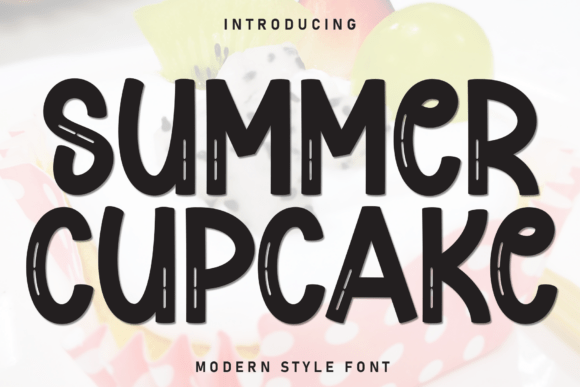
Summer Cupcake Font: A Sweet Serenade of Handcraftsmanship
Are you looking for a font that can add a touch of whimsy and merriment to your designs? Look no further than the Summer Cupcake Font, a delightful handwritten display font that boasts a charming innocence and warm character. In this article, we’ll take a closer look at this beautiful font and explore its unique features, uses, and benefits.
What is Summer Cupcake Font?
Summer Cupcake Font is a handcrafted, handwritten display font that is designed to bring a touch of sweetness and charm to your designs. With its unique character and effervescent spirit, this font is perfect for adding a fun-loving touch to your wedding invitations, sentimental cards, and other designs.
This lovely font is carefully crafted to provide a distinctive and eye-catching appearance that sets it apart from other fonts. Its charming innocence and warm character make it an ideal choice for designers who want to add a personal touch to their work.
Key Features of Summer Cupcake Font
So, what makes Summer Cupcake Font so special? Here are some of its key features:
- Handwritten and handcrafted: Summer Cupcake Font is a handwritten and handcrafted font, which gives it a unique and personal touch.
- Charming innocence: This font boasts a charming innocence that makes it perfect for adding a touch of whimsy and merriment to your designs.
- Warm character: The warm character of Summer Cupcake Font makes it an ideal choice for designers who want to add a personal touch to their work.
- Unique character: This font has a unique character that sets it apart from other fonts, making it perfect for designers who want to stand out from the crowd.
- Effervescent spirit: The effervescent spirit of Summer Cupcake Font makes it perfect for adding a fun-loving touch to your designs.
Uses of Summer Cupcake Font
Summer Cupcake Font is a versatile font that can be used for a variety of design projects. Here are some of the most popular uses of this font:
- Wedding invitations: This font is perfect for wedding invitations, as it adds a touch of romance and whimsy to your designs.
- Sentimental cards: Summer Cupcake Font is also great for sentimental cards, as it provides a personal and heartfelt touch.
- Designs that require a fun-loving touch: This font is perfect for designs that require a fun-loving touch, such as party invitations, children’s books, and more.
Benefits of Using Summer Cupcake Font
So, why should you use Summer Cupcake Font for your design projects? Here are some of the benefits of using this font:
- Unique and eye-catching: Summer Cupcake Font provides a unique and eye-catching appearance that sets it apart from other fonts.
- Personal touch: This font adds a personal touch to your designs, making them more relatable and engaging.
- Versatile: Summer Cupcake Font is a versatile font that can be used for a variety of design projects.
- Easy to read: This font is easy to read, making it perfect for designs that require a clear and concise message.
Tips and Tricks for Using Summer Cupcake Font
Here are some tips and tricks for using Summer Cupcake Font:
- Use it sparingly: Use Summer Cupcake Font sparingly to avoid overwhelming your design.
- Mix and match: Mix and match Summer Cupcake Font with other fonts to create a unique and eye-catching design.
- Experiment with colors: Experiment with different colors to find the perfect match for your design.
- Pay attention to spacing: Pay attention to spacing to ensure that your design looks clean and organized.
In conclusion, Summer Cupcake Font is a beautiful and unique handwritten display font that can add a touch of whimsy and merriment to your designs. With its charming innocence, warm character, and effervescent spirit, this font is perfect for designers who want to add a personal touch to their work. Whether you’re preparing wedding invitations, sentimental cards, or any design that requires a fun-loving touch, Summer Cupcake Font is bound to bring your ideas to life.
- What is Summer Cupcake Font? Summer Cupcake Font is a handcrafted, handwritten display font that boasts a charming innocence and warm character.
- What are the key features of Summer Cupcake Font? The key features of Summer Cupcake Font include its handwritten and handcrafted nature, charming innocence, warm character, unique character, and effervescent spirit.
- What are the uses of Summer Cupcake Font? Summer Cupcake Font can be used for wedding invitations, sentimental cards, and designs that require a fun-loving touch.
- What are the benefits of using Summer Cupcake Font? The benefits of using Summer Cupcake Font include its unique and eye-catching appearance, personal touch, versatility, and ease of reading.